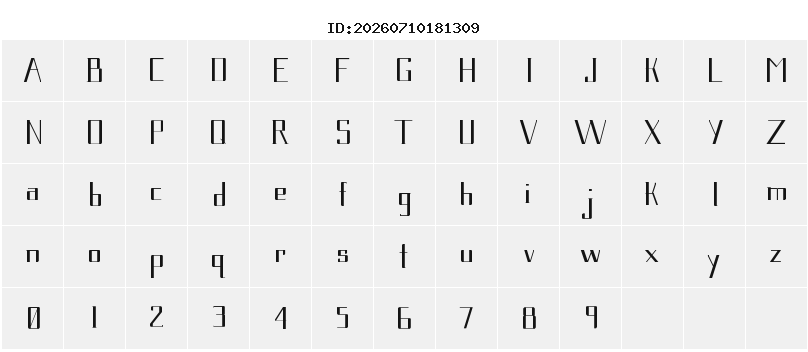
Gavetica Preview
• Font Name: Gavetica
• Full Font Name: Gavetica
About Gavetica.ttf
Gavetica.ttf is a modern, elegant sans-serif font designed for ultimate readability and visual harmony. Perfect for branding, headlines, web design, and print materials.